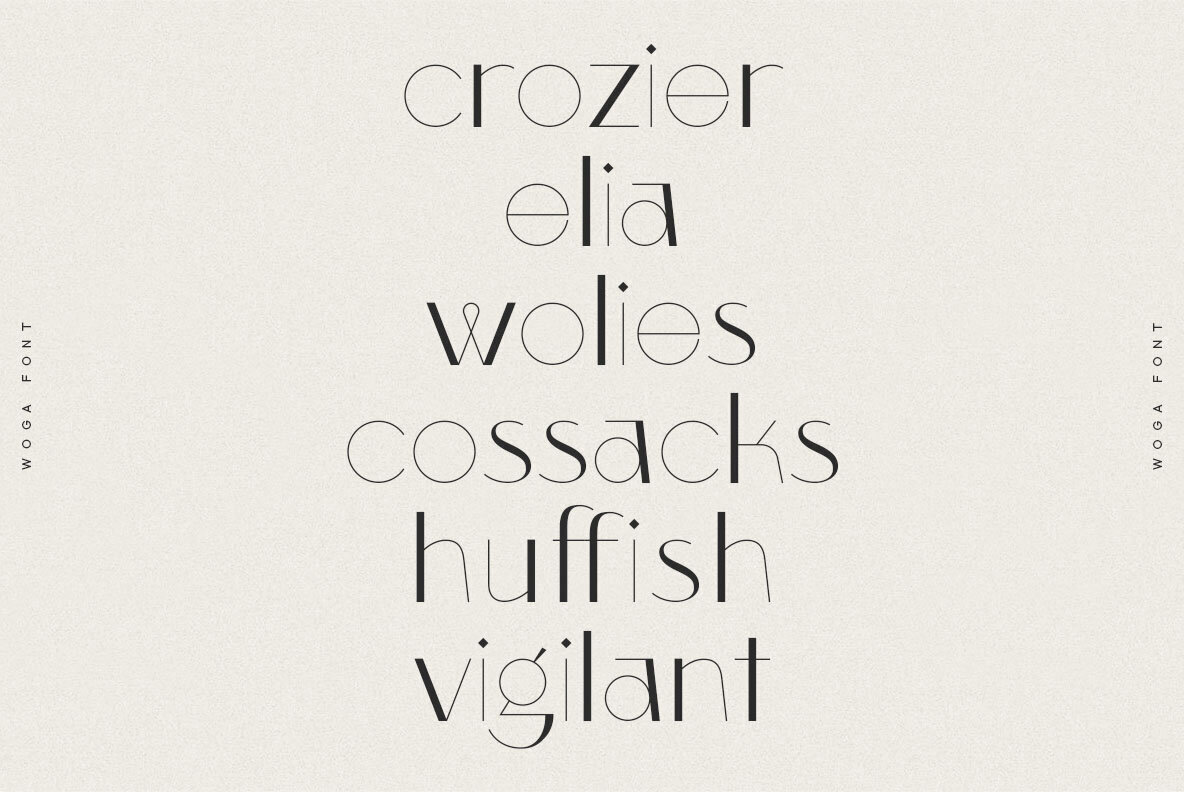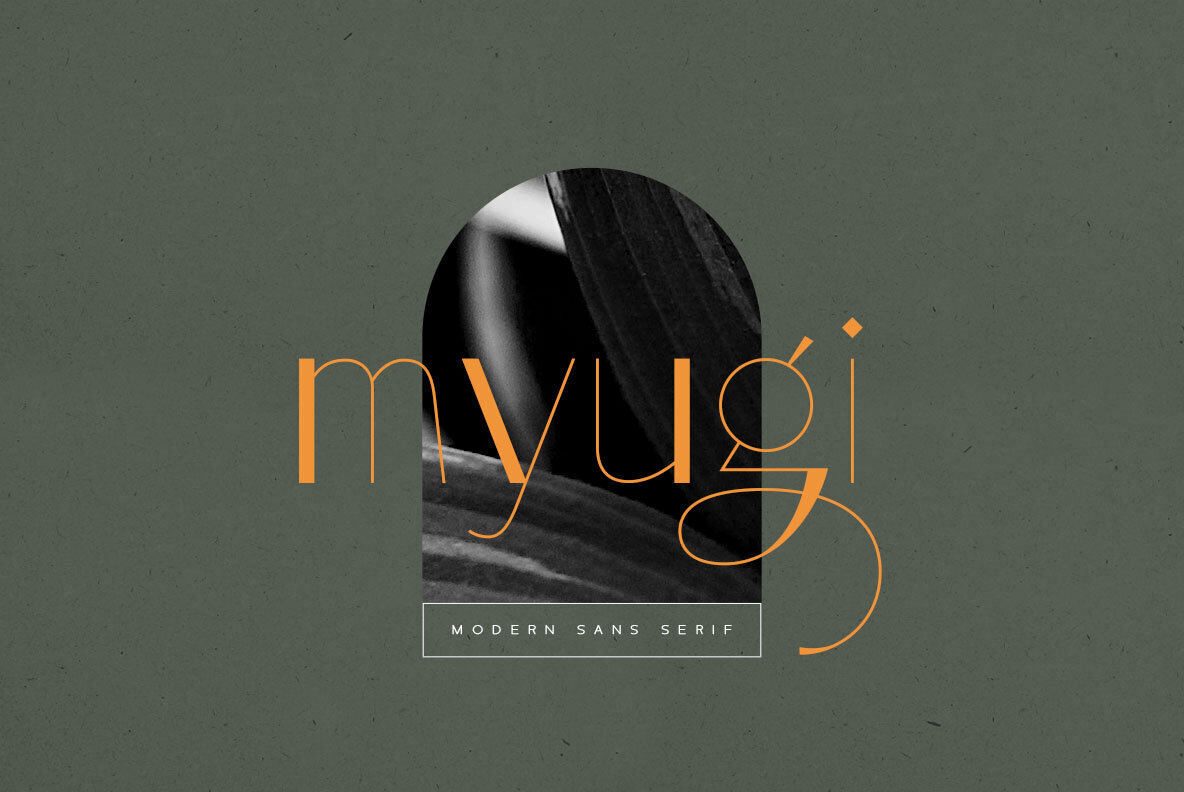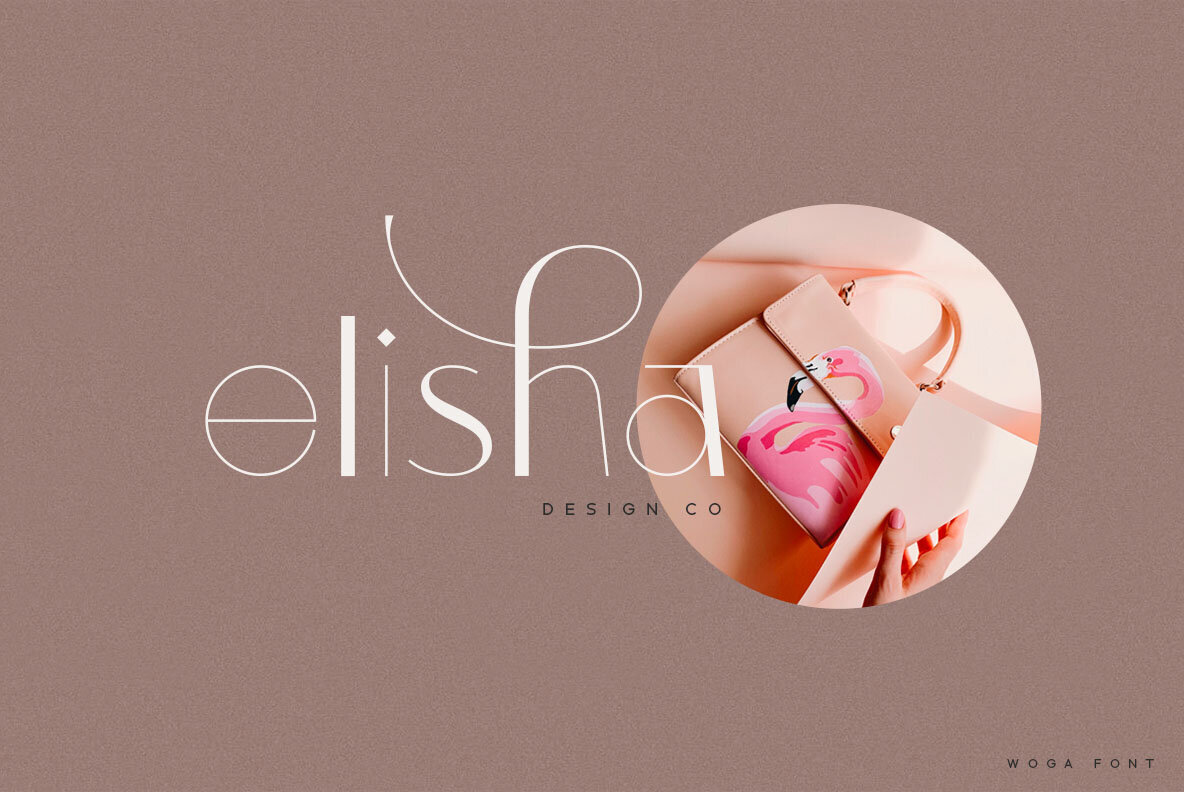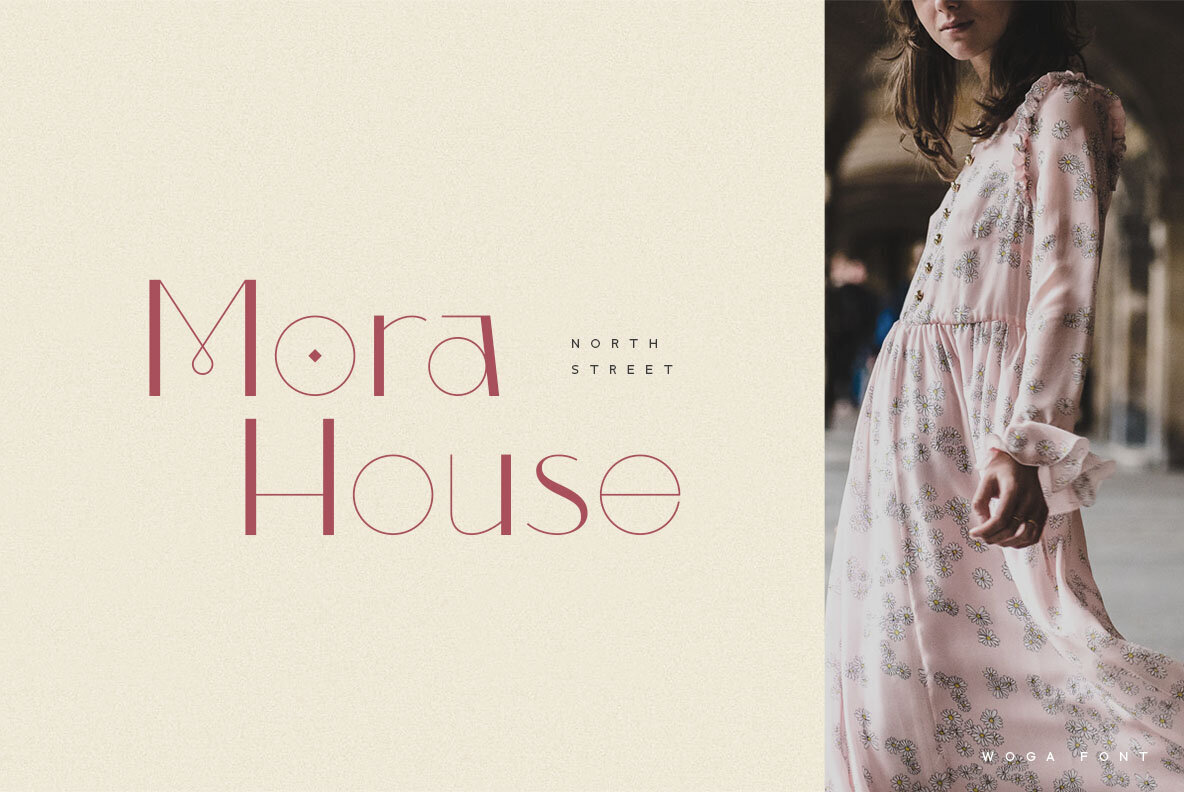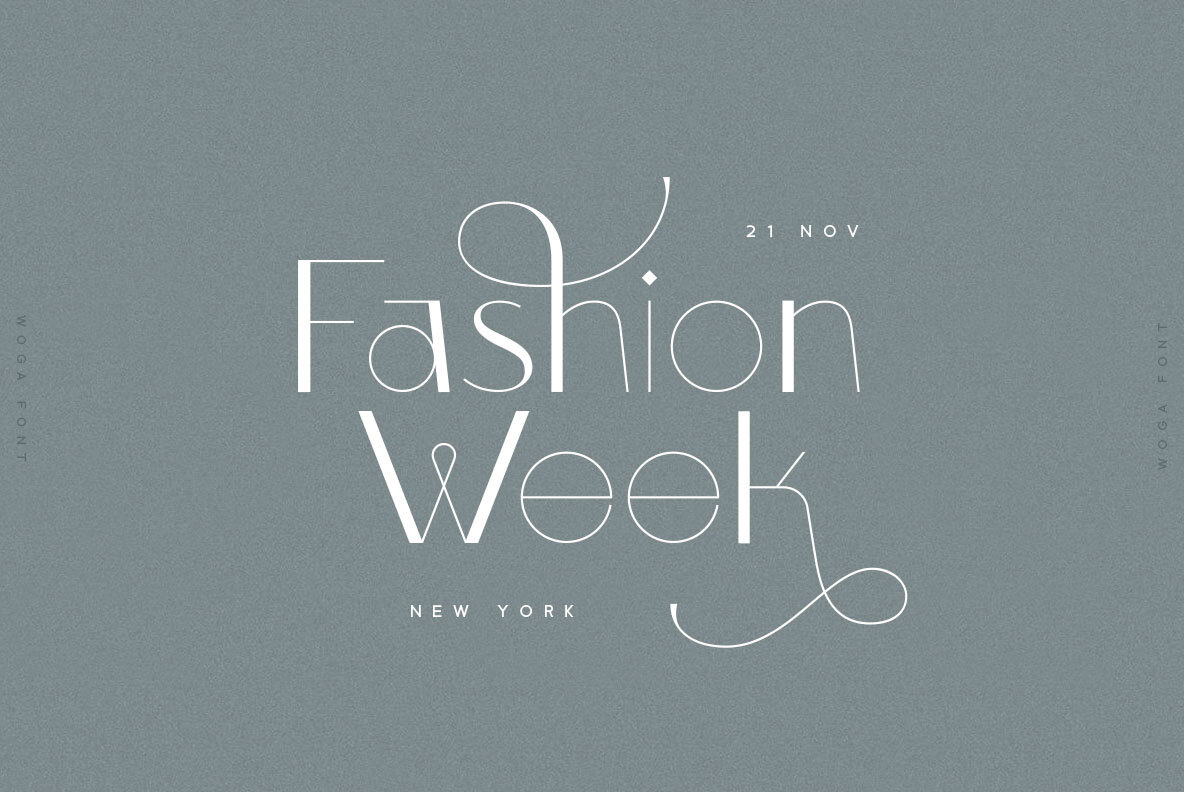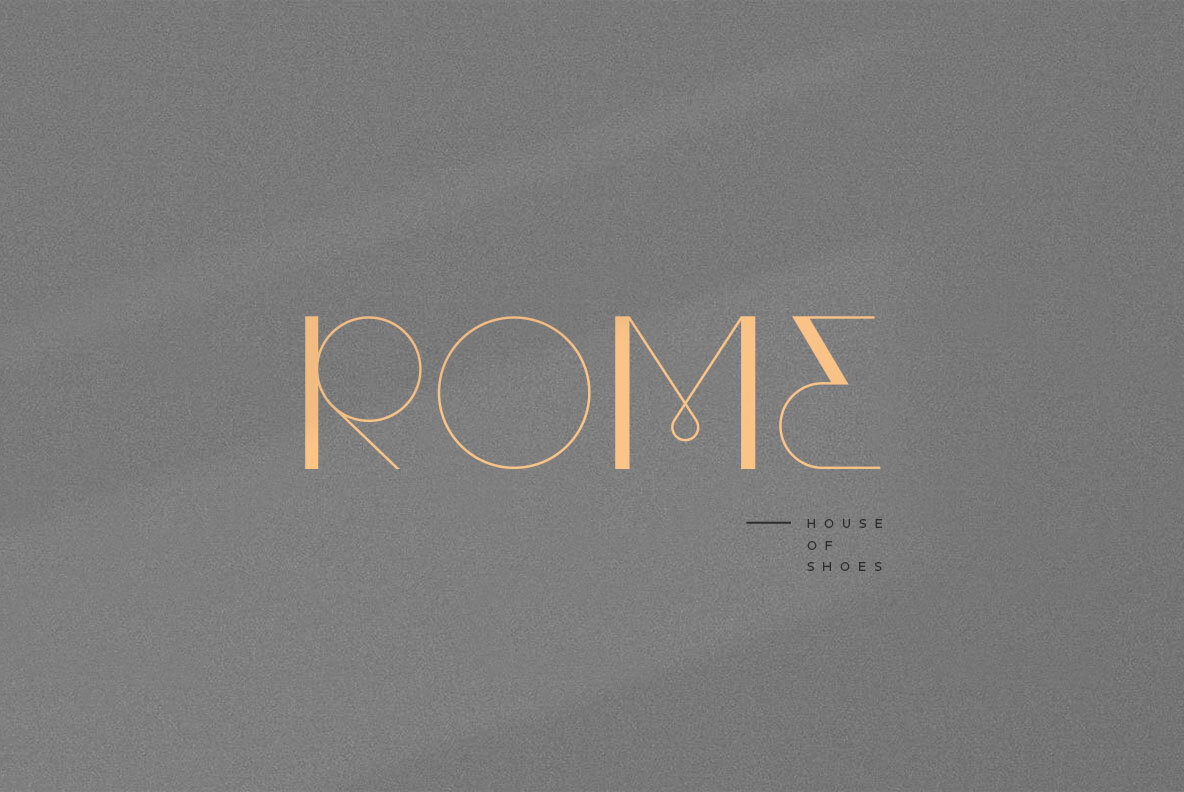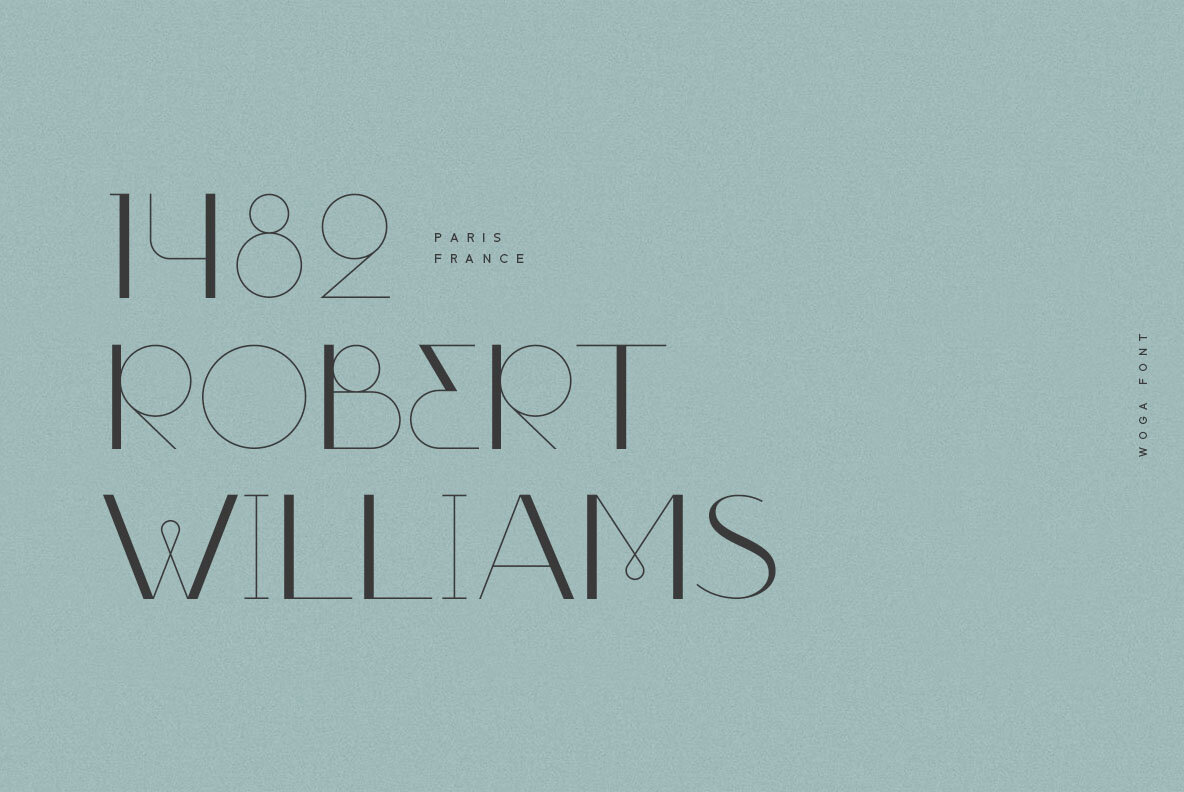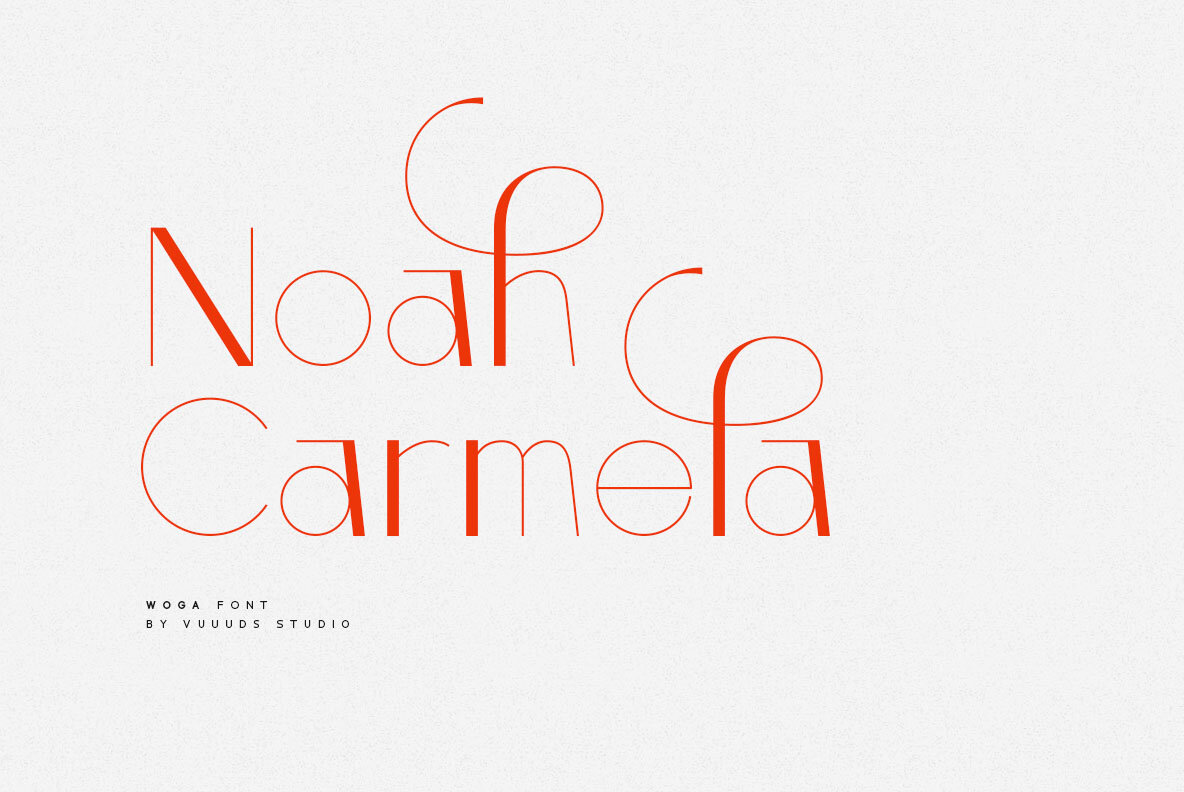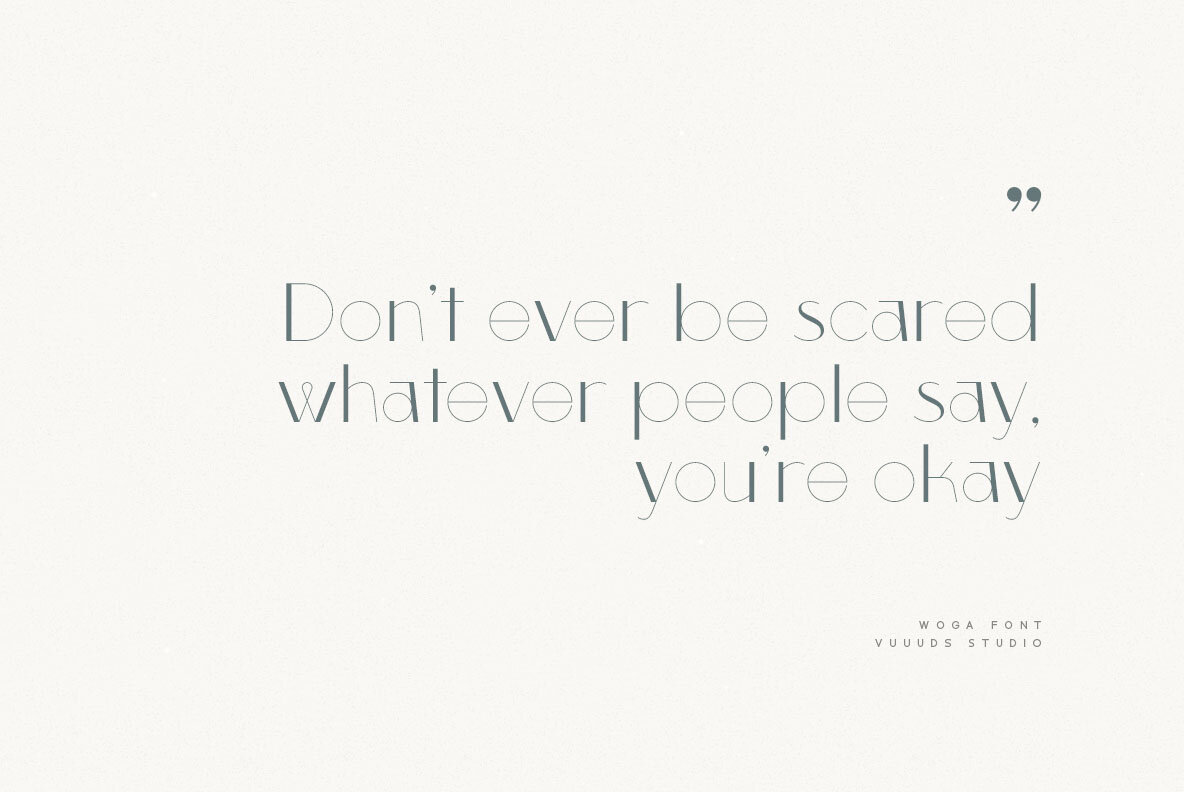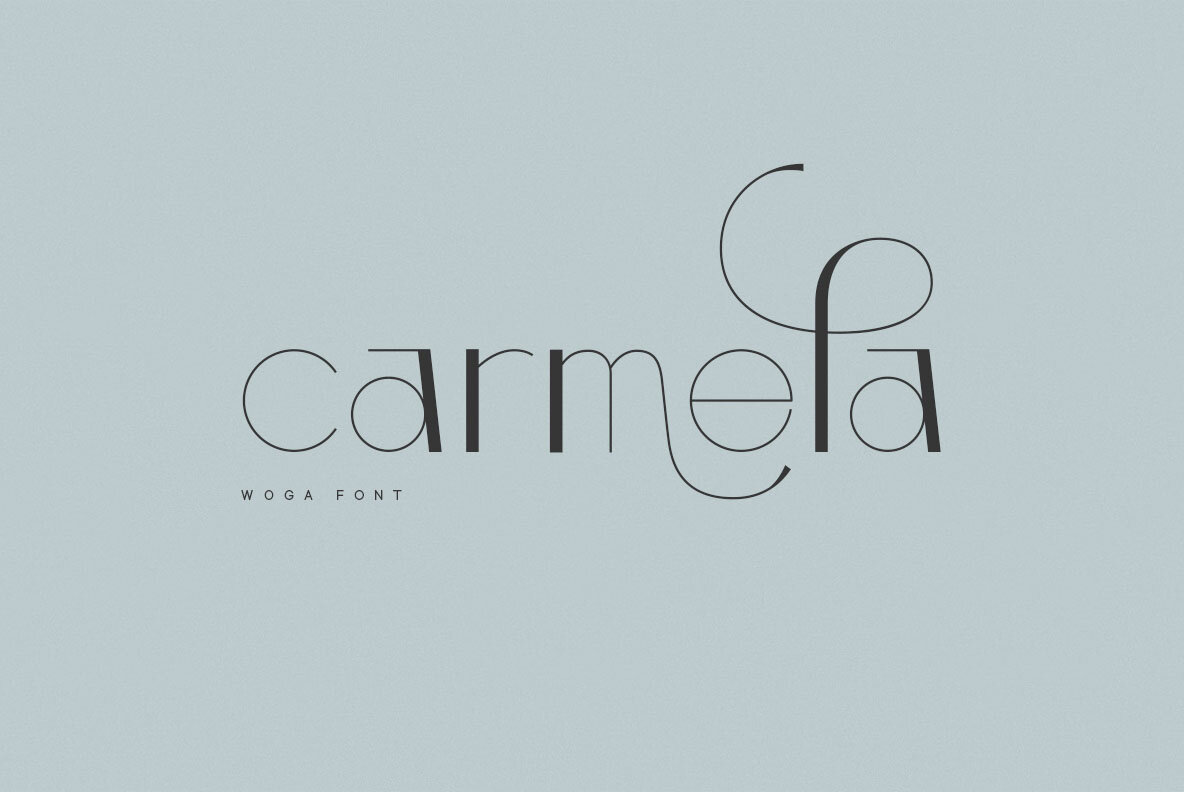
Woga
Woga is a modern serif font designed to offer elegance and readability. Each letter is meticulously shaped to provide visual harmony, making it ideal for a variety of design projects. Features:Woga: A Modern Serif Font Rich in Detail
With its refined design, Woga provides versatility for any design endeavor, from digital layouts to printed materials.